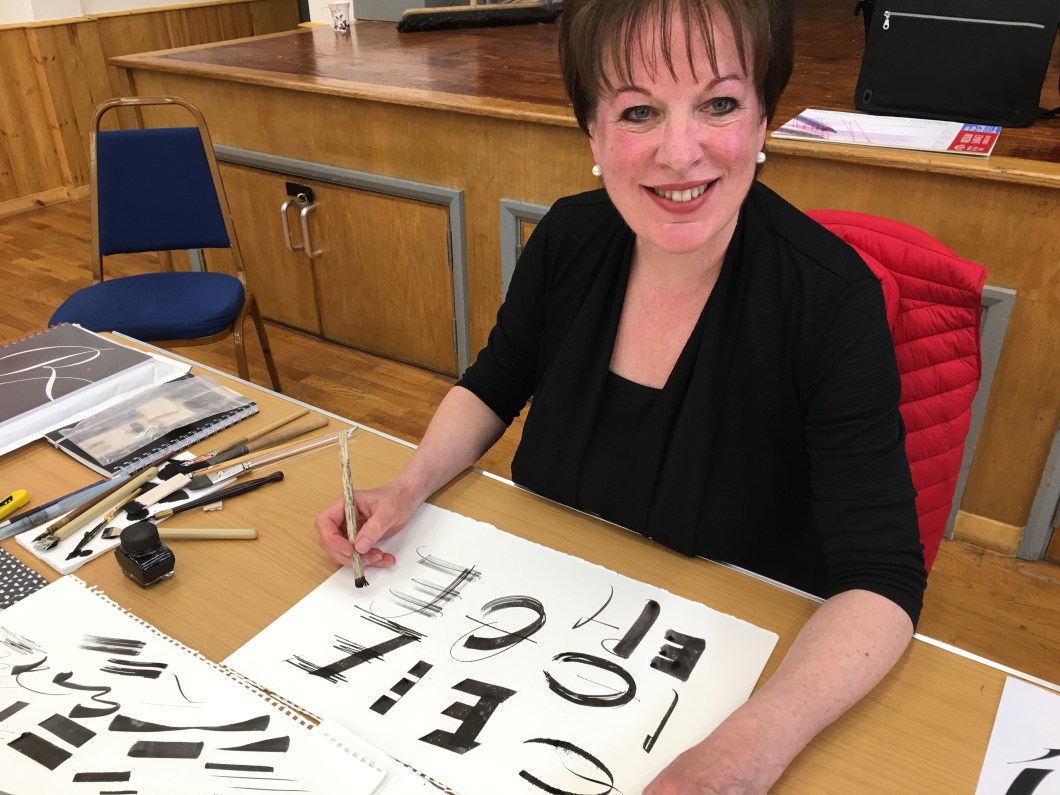
Looking Beyond the Literal Letter
Rachel Yallop
In Rachel Yallop’s workshop we used a variety of tools to customise our chosen couple of letters by altering all sorts of parameters.